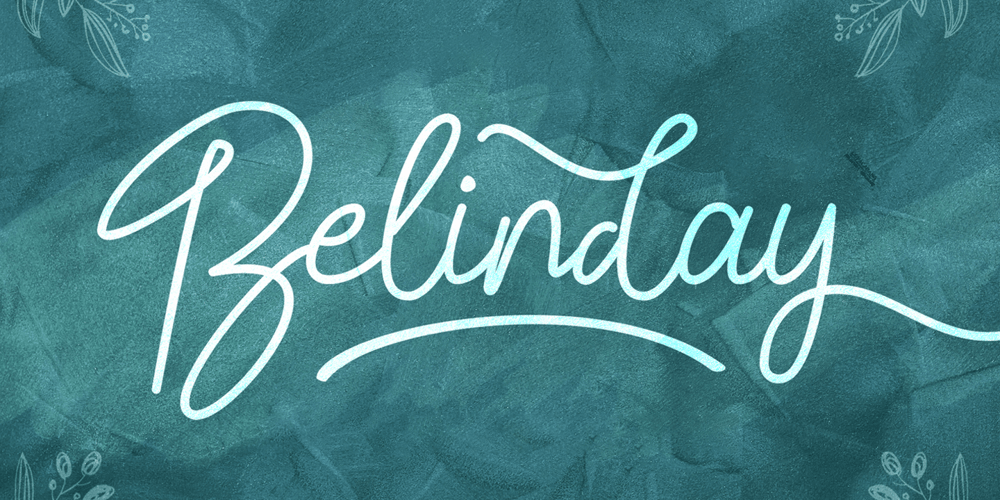
Belinday
Belinday font
Belinday Font Family was designed by Virgiawan Listanto and published by Stringlabs Creative Studio. Belinday contains 1 styles and family package options. Belinday is a Monoline Script Font with Retro Vintage Style. This font is perfect for fashion brand, apparel, shoes company, wedding invitation, business card, logo brand, clothing, and also business brand name like barber shop or taylor.Thanks.